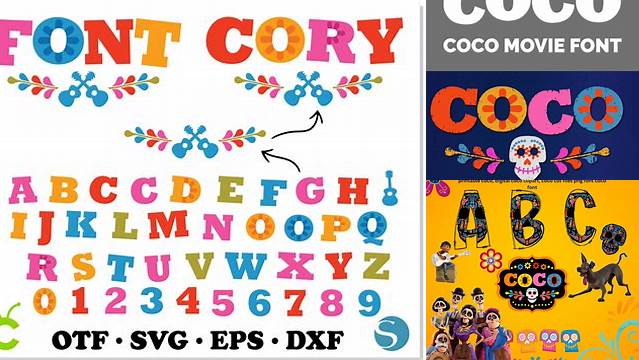
Disney Coco Font: Free Download For Your Creative Projects
Are you a fan of the vibrant and heartwarming Disney Pixar movie, Coco? If so, you might be looking for the perfect font to capture the film's unique aesthetic for your creative projects. The Disney Coco font, with its whimsical and festive design, is a fantastic choice for invitations, posters, social media graphics, and more. In this article, we'll guide you on how to find and free download this amazing typeface, ensuring you can infuse your work with the magic of Coco.
What is the Disney Coco Font?
Before we dive into how to download it, let's understand what makes the Disney Coco font so special. This typeface isn't just any font; it's designed to evoke the spirit of the movie, which celebrates Mexican culture, family, and the Day of the Dead. The font often features playful curves, ornate details, and a generally festive feel. While there isn't an officially licensed "Disney Coco font" available for public download (Disney usually keeps its official fonts proprietary), numerous talented designers have created fonts inspired by the movie's visual style. These inspired fonts capture the essence of Coco, making them perfect for projects that need a touch of Mexican flair and Disney magic. Think about the vibrant colors and intricate designs seen in the movie – the fonts aim to replicate that visual richness.
Key Characteristics of Coco-Inspired Fonts
When searching for a Disney Coco font, you'll typically find fonts that share several characteristics. First, many feature a slightly handwritten or script-like appearance, which adds a personal and artistic touch. This mimics the traditional Mexican art styles often seen in the movie's setting. Secondly, look for fonts with bold strokes and playful curves. These elements contribute to the font's lively and energetic vibe, making it stand out in any design. The best Coco-inspired fonts also incorporate decorative elements such as swirls, dots, and other ornate details. These additions enhance the font's visual appeal and make it more reminiscent of the festive decorations in the movie. Color is also a key consideration. While the font itself doesn't have color, think about how it will look with vibrant hues – this is crucial for capturing the Coco aesthetic. Lastly, versatility is important; a good Coco-inspired font should work well in various sizes and applications, from large posters to smaller text blocks. By keeping these characteristics in mind, you can effectively search for and select fonts that truly capture the spirit of Coco.
Why Use a Coco-Inspired Font?
Why should you consider using a Coco-inspired font for your projects? Well, if you're aiming for a design that's both visually appealing and culturally resonant, these fonts are an excellent choice. They immediately evoke the movie's themes of family, tradition, and celebration, making them perfect for events like Day of the Dead parties, Mexican-themed celebrations, or even personal projects like family scrapbooks. Furthermore, a Coco-inspired font can add a unique and playful touch to your designs. Unlike more generic fonts, these typefaces have character and personality, helping your message stand out and grab attention. They're particularly effective for projects targeting children or families, as the fonts' whimsical nature can be very engaging. In the world of design, standing out is crucial, and using a themed font like this can be a great way to achieve that. Plus, for those who are fans of the movie, using a Coco-inspired font is a subtle nod to the film, creating a connection with others who appreciate its artistic style. Whether you're designing invitations, posters, or social media graphics, a Coco-inspired font can bring a touch of magic and cultural richness to your work. Just imagine how your project can come to life with a font that echoes the vibrant spirit of Coco!
The Disney Coco font, or rather, the myriad of fantastic fonts inspired by the movie, offers a wonderful way to infuse your creative projects with the vibrant spirit of Mexican culture and Disney magic. By following this guide, you can free download and install these fonts, and use them effectively in a variety of designs. Remember to search diligently, understand font licenses, and consider design best practices to make the most of your new typeface. Whether you're designing invitations, posters, social media graphics, or branding materials, a Coco-inspired font can add a unique and festive touch. So go ahead, unleash your creativity, and let the magic of Coco shine through your work! Enjoy bringing a touch of Disney and cultural richness to your projects with these amazing fonts.